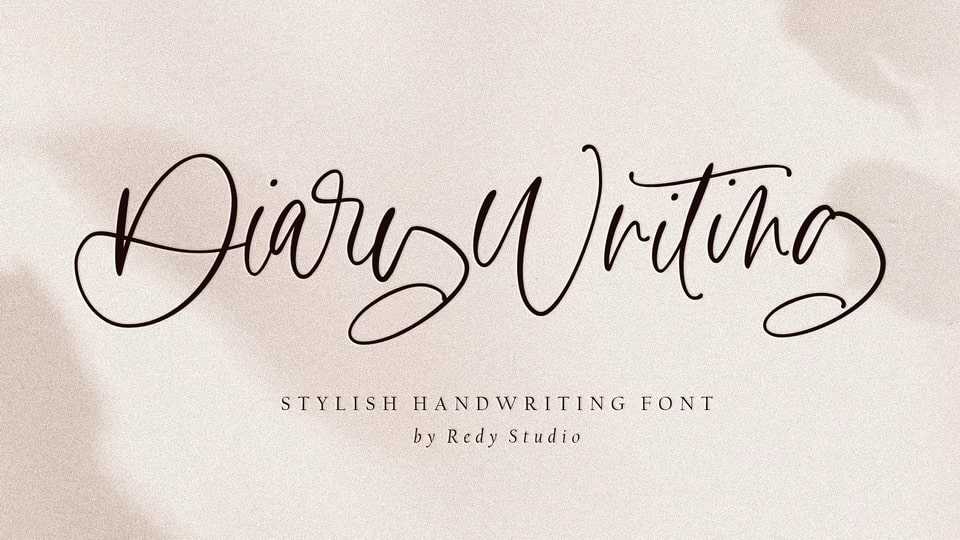
Download Diary Writing font, a modern calligraphy typeface with varying stroke thickness, inspired by love and passion. With its modern character, you can use Diary Writing font for wedding invitations, formal events, quotes.
Designer: Redy Studio